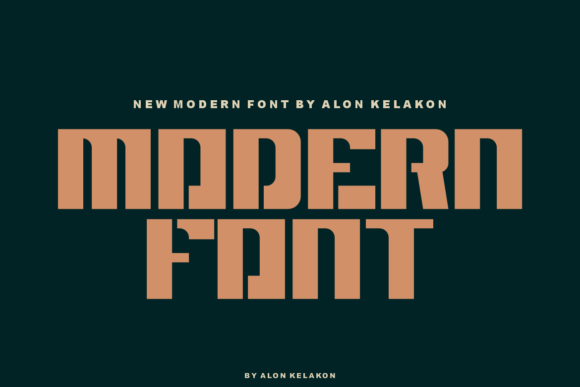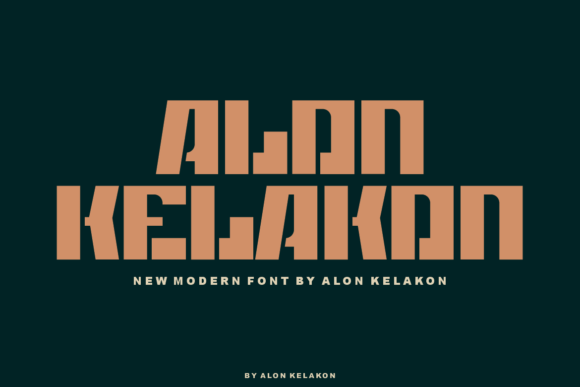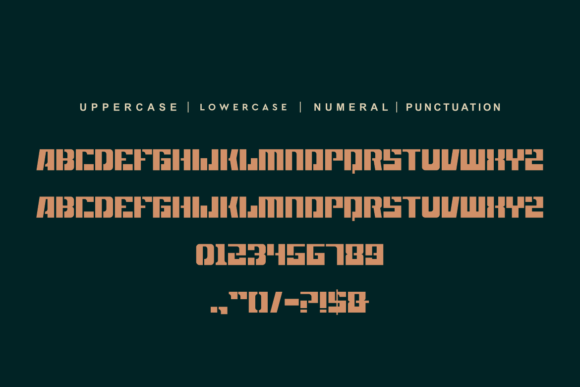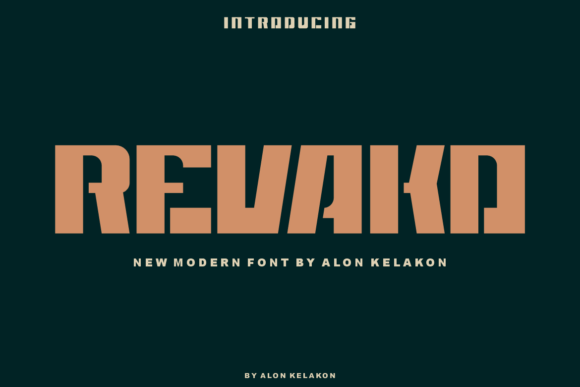
Introduction to Revako Font
Revako Font is unique.
Ready to use for your design like labeling, clothing, movie screen, poster, movie title, gigs, album covers, logos, and much more .
Why Choose Revako Font?
Revako Font offers exceptional quality and versatility, making it a valuable addition to your design toolkit. Whether you’re creating for personal projects or commercial use, Revako Font delivers professional results.